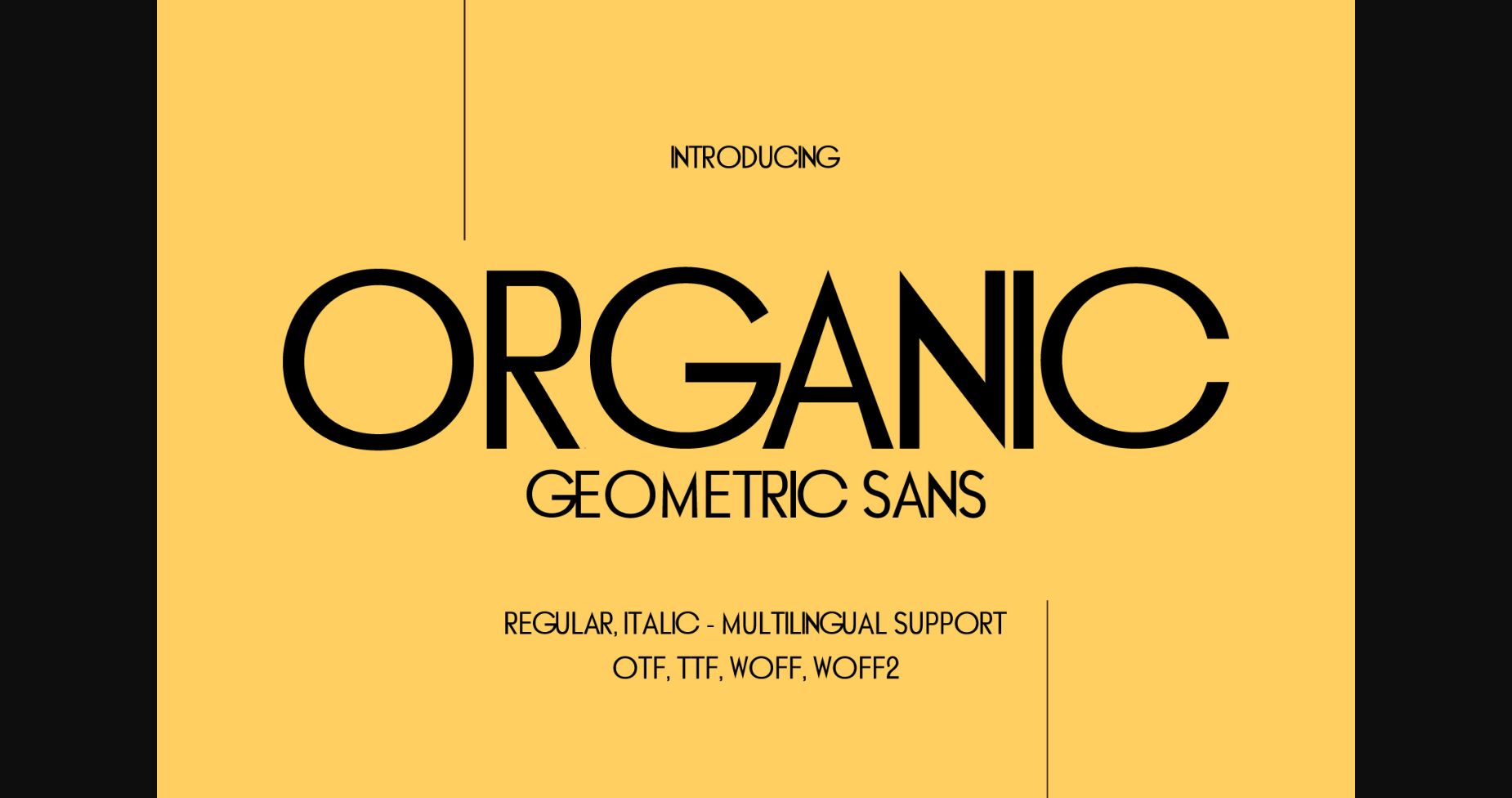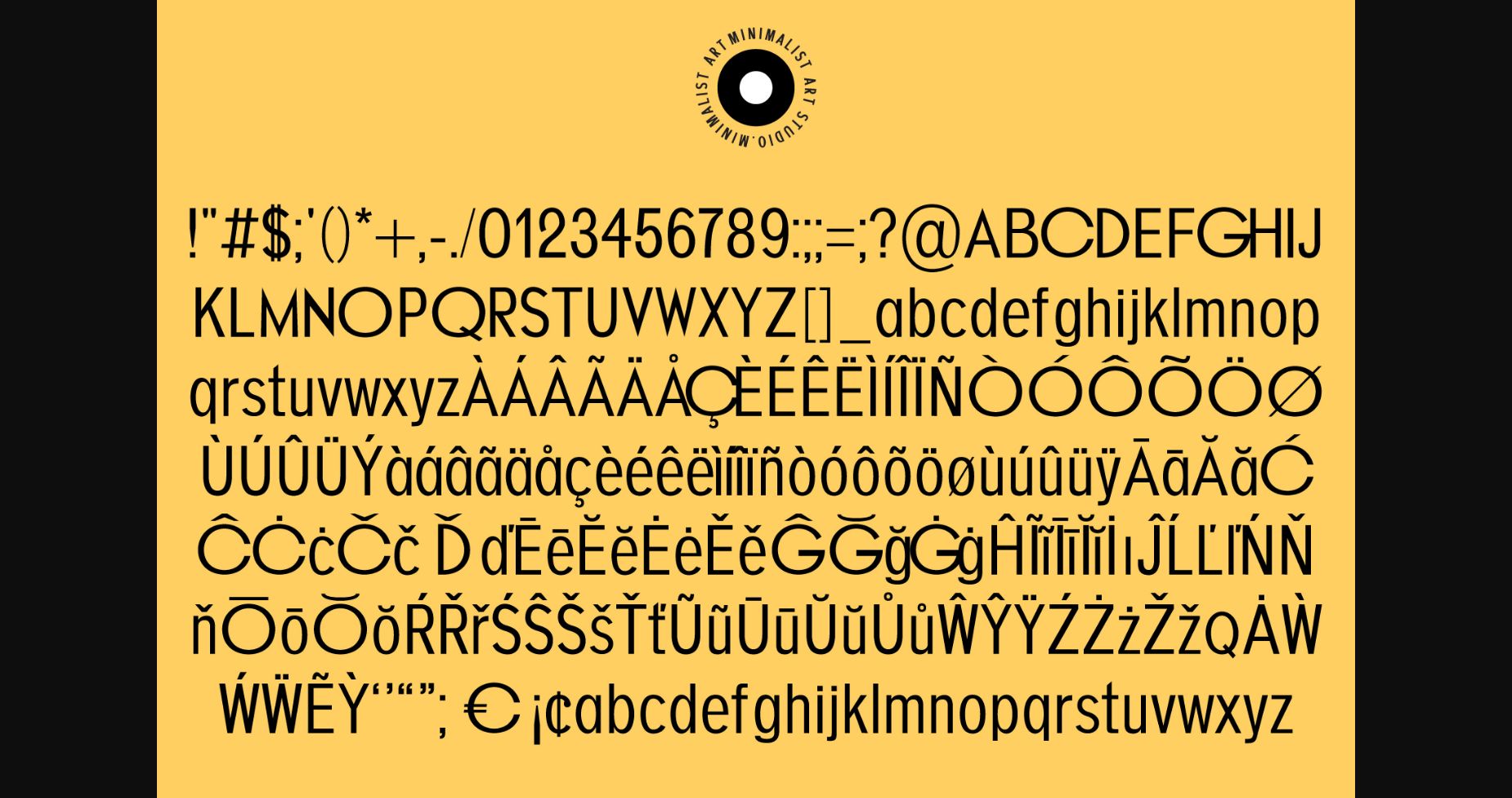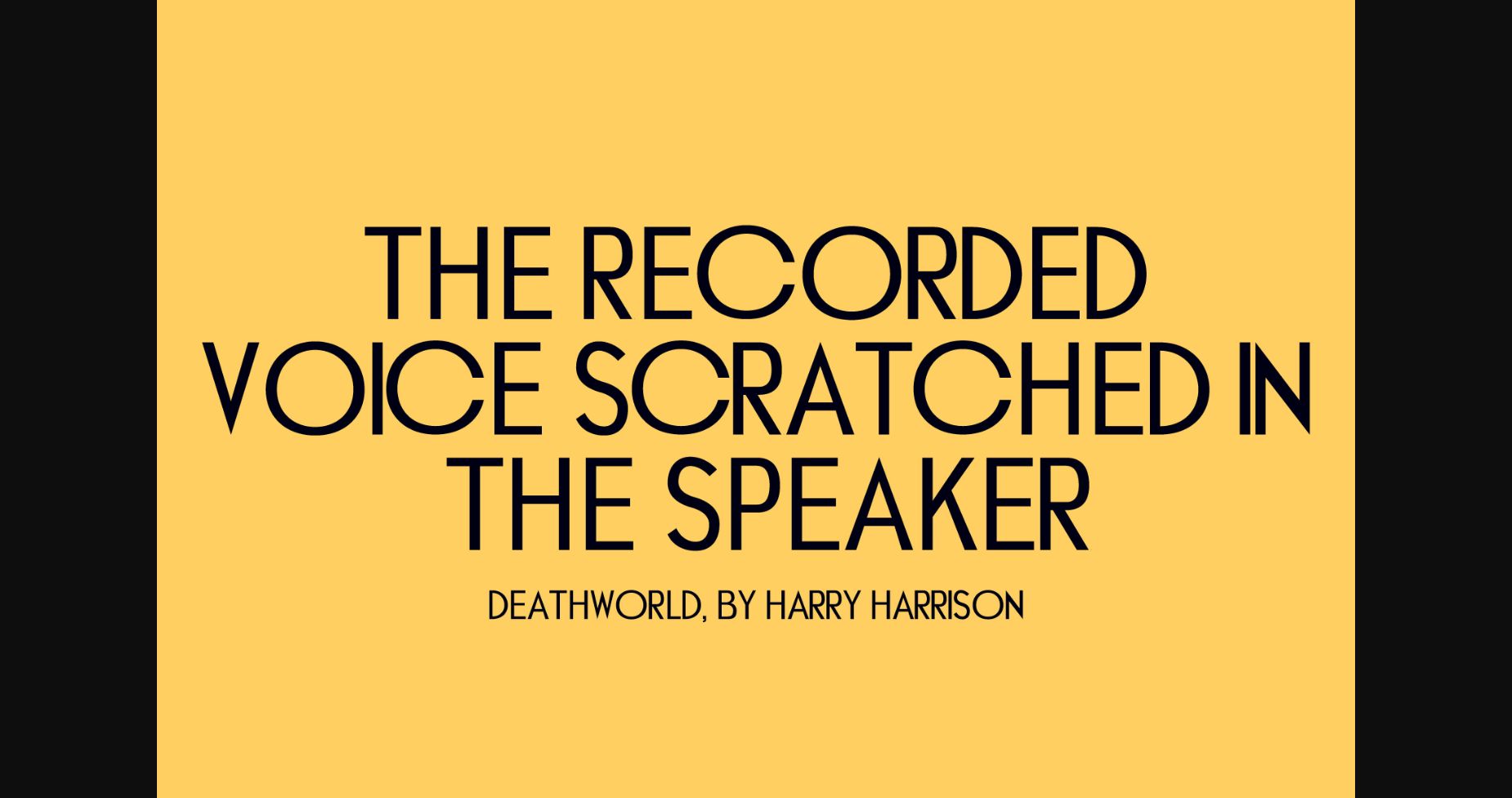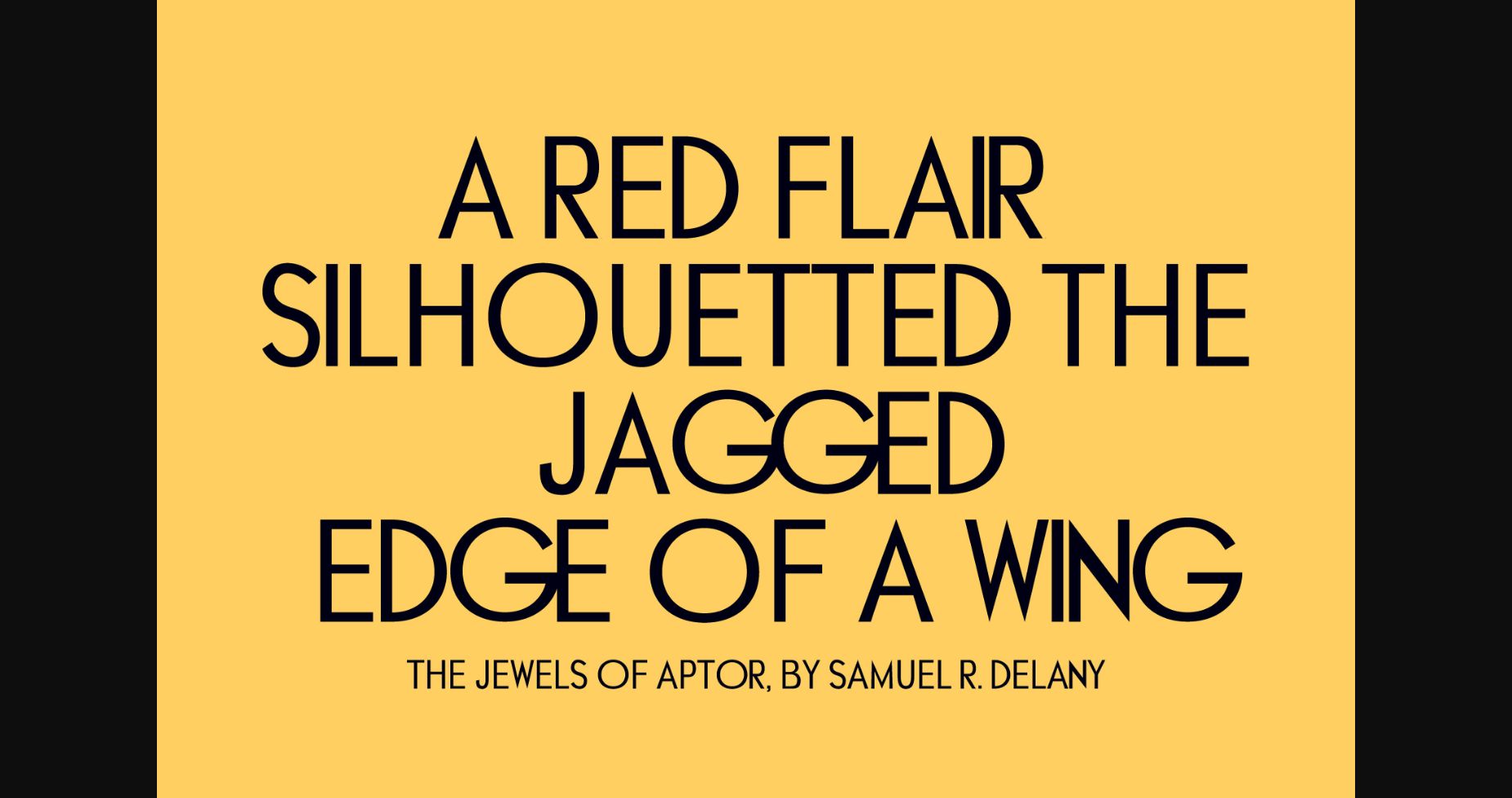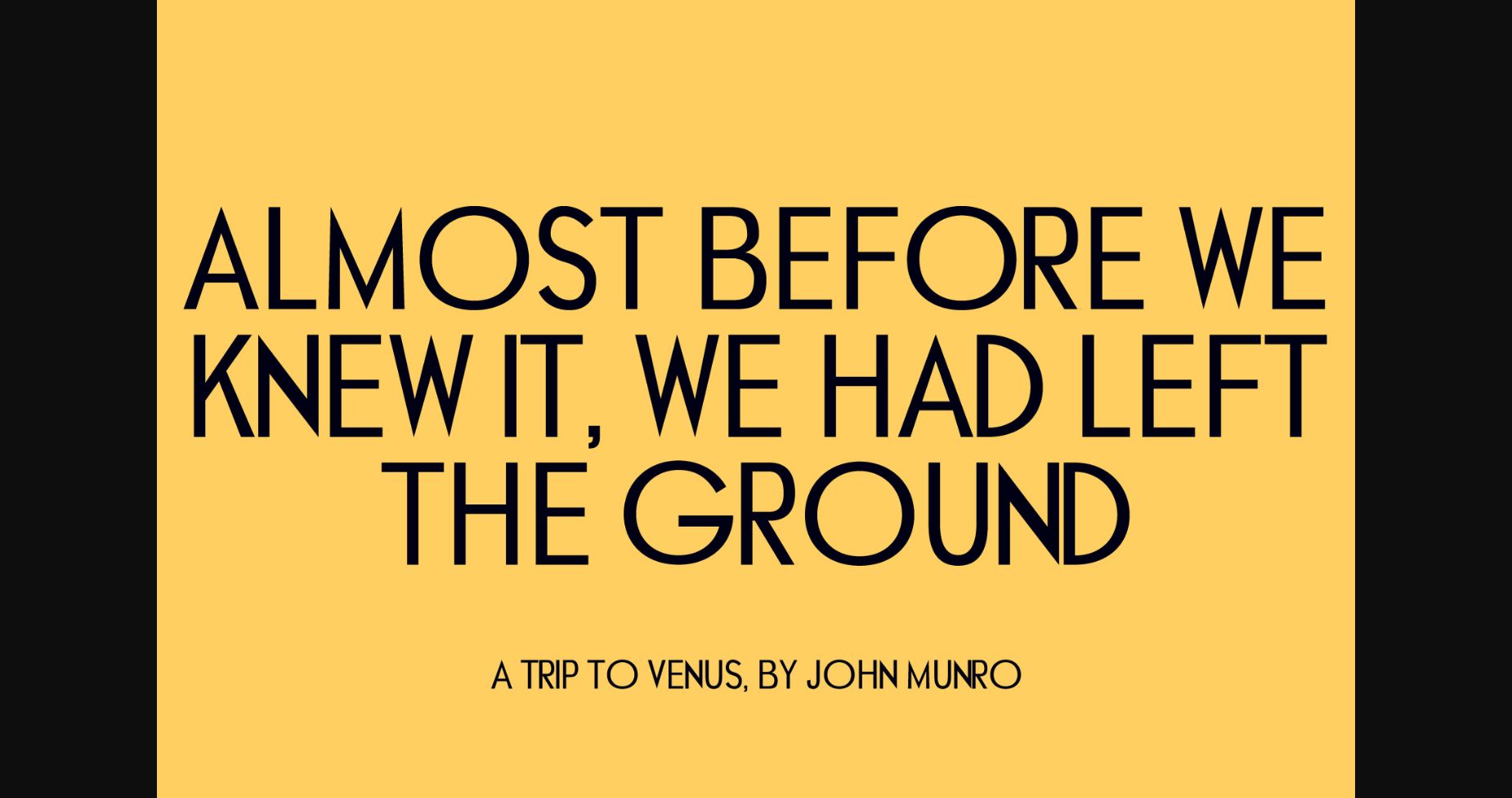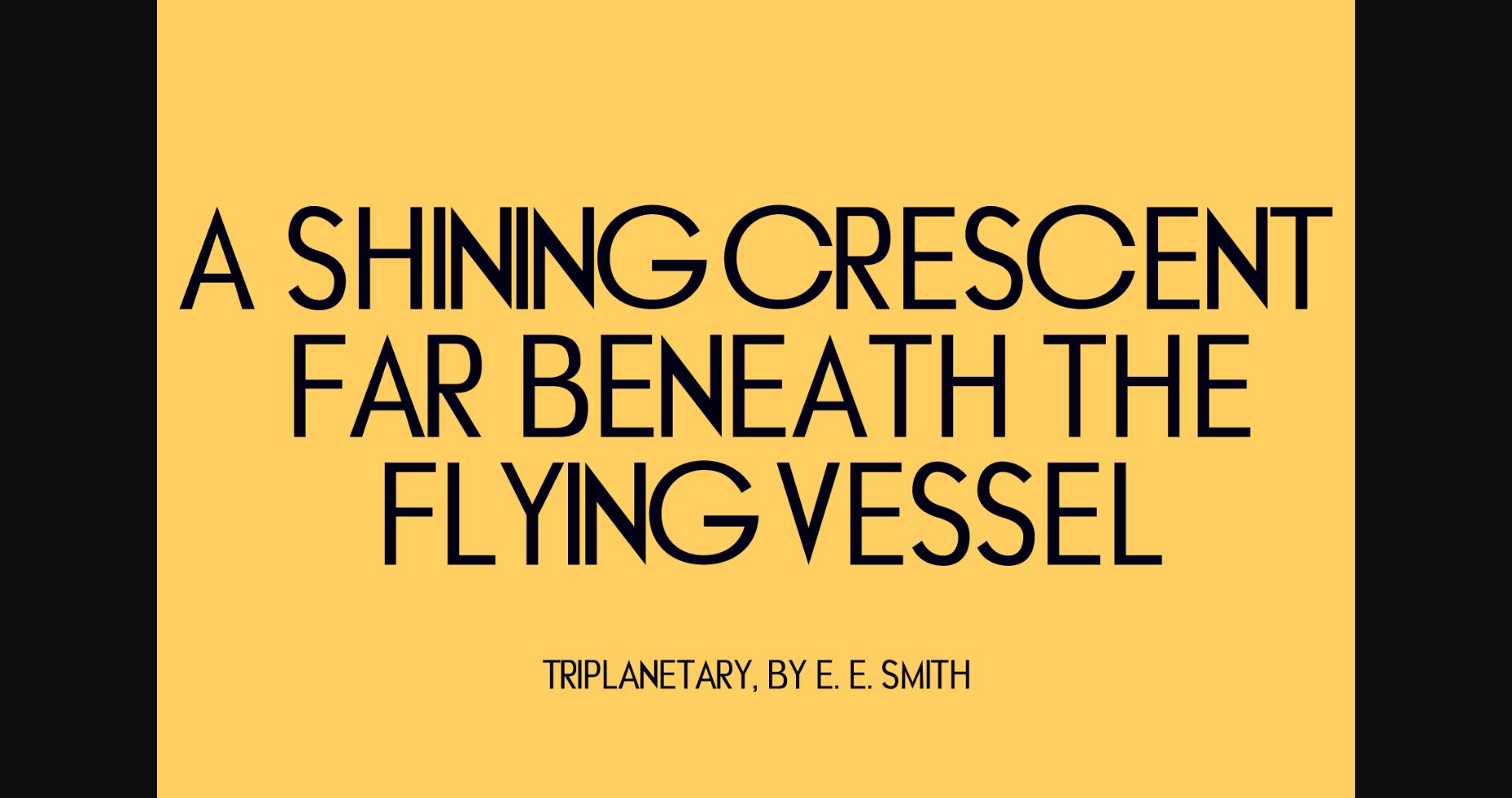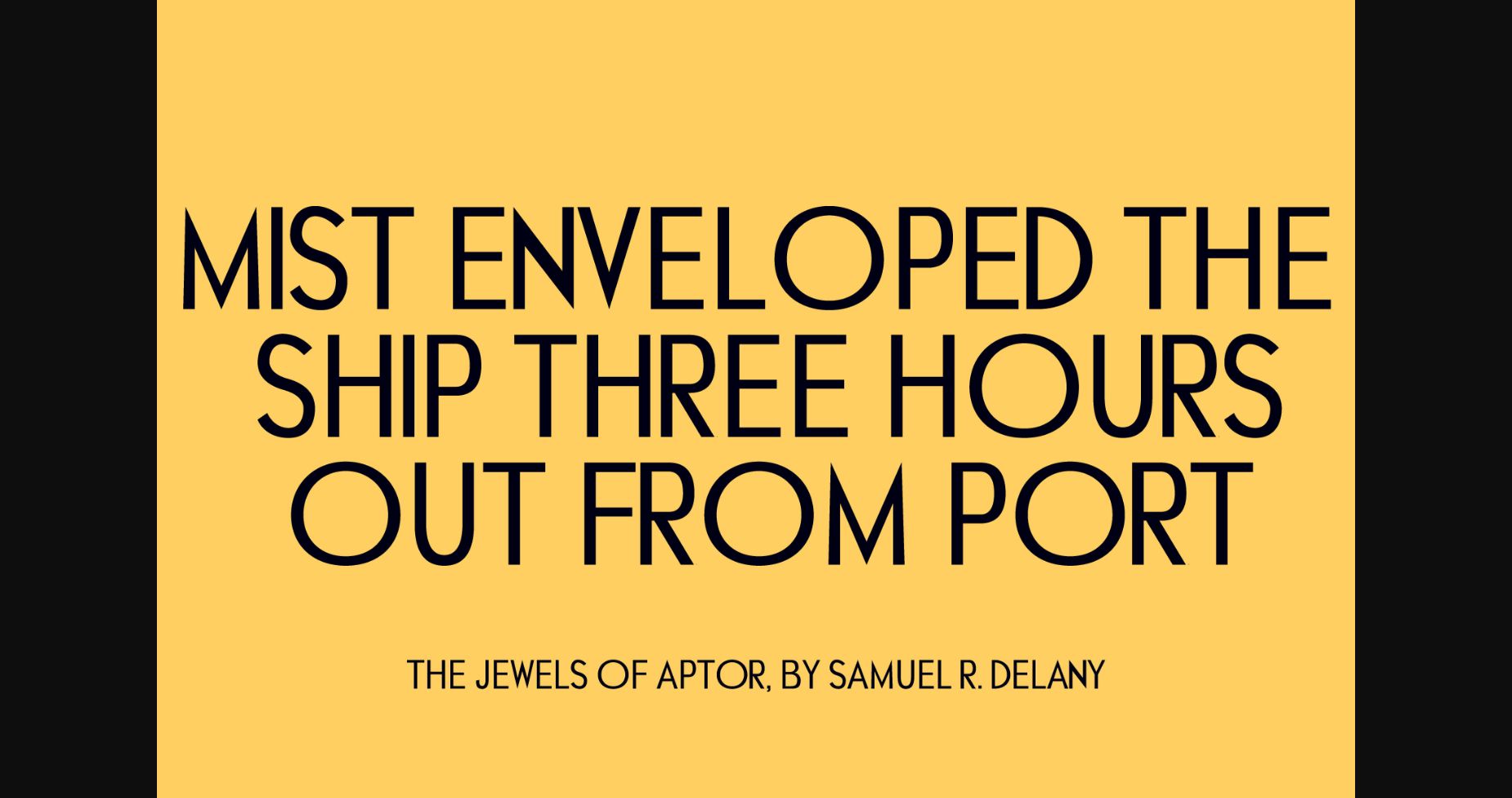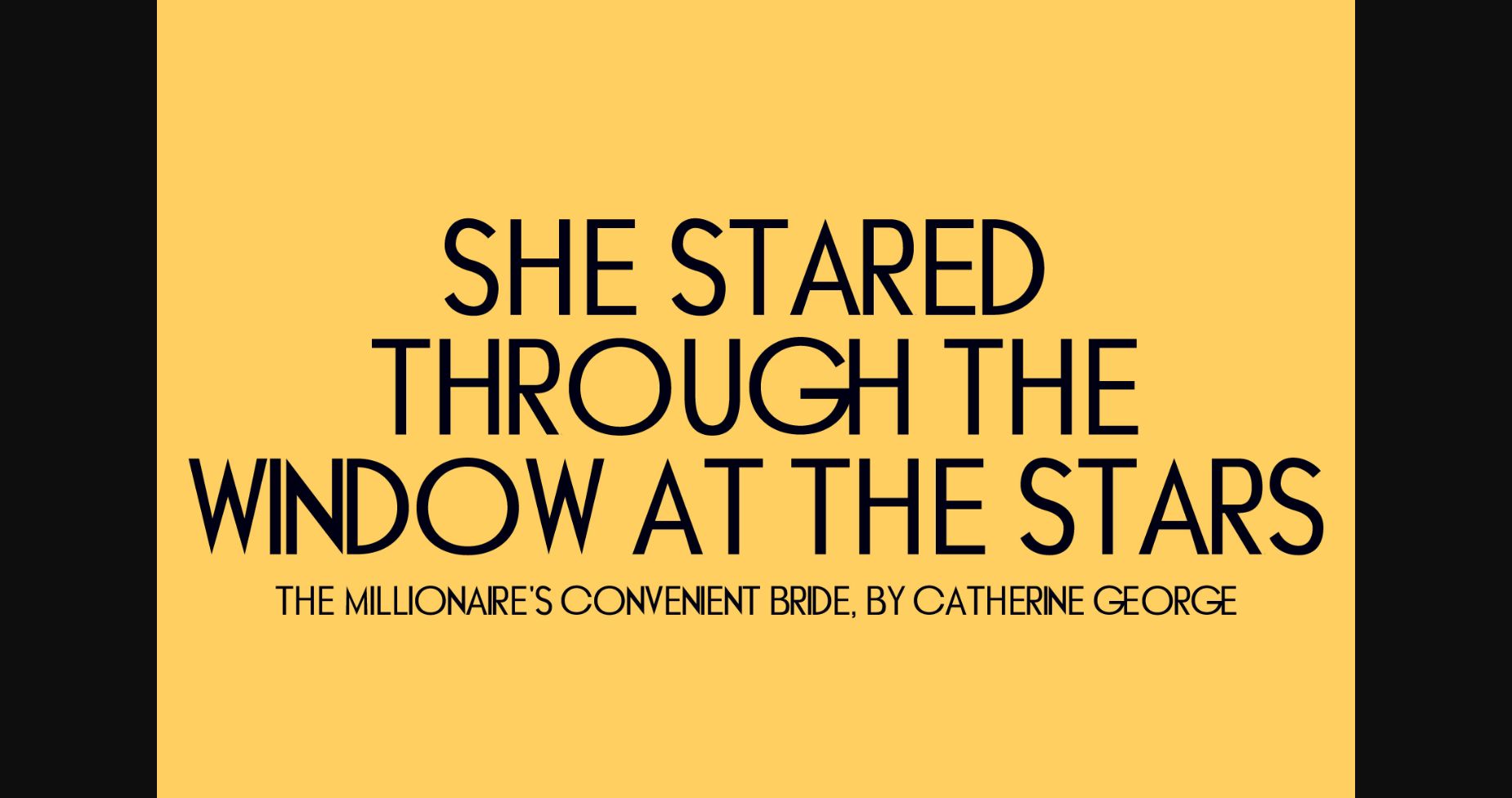
Organic Font
About Organic Font
Introducing Organic, a contemporary grotesk, geometric sans serif font that combines sharp, angular lines with subtle curves and organic shapes to create a unique and modern typeface. With its clean, minimalist design and versatile character set, Organic is perfect for a wide range of design applications, from branding and advertising to web and print design.
The font’s bold, uppercase letters are designed to command attention, while its lowercase letters are understated and elegant. The unique combination of straight lines and curves gives the font a sense of balance and harmony, making it an excellent choice for both bold headlines and body text. Organic features a full set of numerals, punctuation marks, and special characters, ensuring that it can be used for a wide range of projects.
With its sleek, modern design and versatile character set, Organic is the perfect choice for any designer looking to make a bold statement. Whether you’re creating a logo for a cutting-edge startup or designing a sleek, minimalist website, Organic will help you achieve a distinctive and professional look that stands out from the crowd.